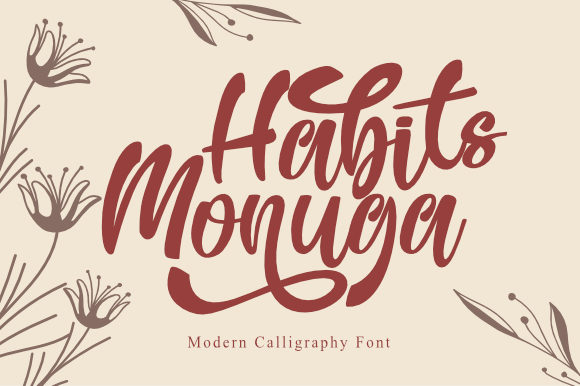
Attention all script-loving designers! Prepare to fall head over heels for Habits Monuga, the font that's destined to add a touch of elegance and charm to your next project. This beautifully crafted font will captivate your audience with its flowing, paint-brushed strokes and expressive character.
Crafted by the talented EKNOJI, Habits Monuga is an absolute gem for creating wedding logos that exude romance and timeless beauty. Its delicate lines and graceful curves will evoke a sense of love and togetherness that will perfectly complement your special day.
But wait, there's more! Habits Monuga is not just a one-trick pony. Its versatility extends far beyond wedding designs. This font will bring a touch of sophistication and artistry to a wide range of projects, from social media graphics to branding and packaging. Unleash your creativity and let Habits Monuga elevate your designs to new heights.
With Habits Monuga in your toolkit, you'll no longer have to struggle with finding the perfect script font. This enchanting font will become your go-to choice for adding a touch of elegance and originality to any project. Its timeless beauty and versatility will ensure that it remains a beloved asset in your fonts’ library for years to come.
So, if you're seeking a script font that will make your designs shine, look no further than Habits Monuga. Its captivating charm and endless possibilities will leave you inspired and eager to create something truly extraordinary.